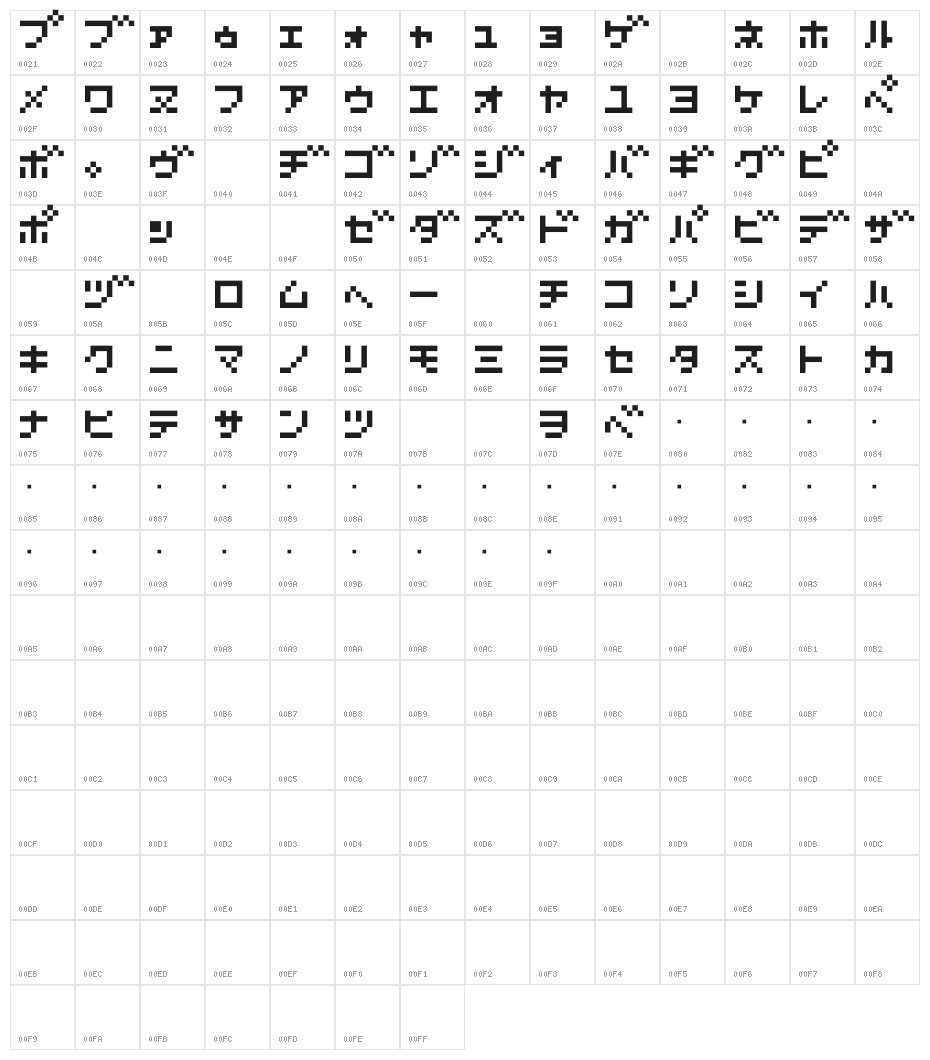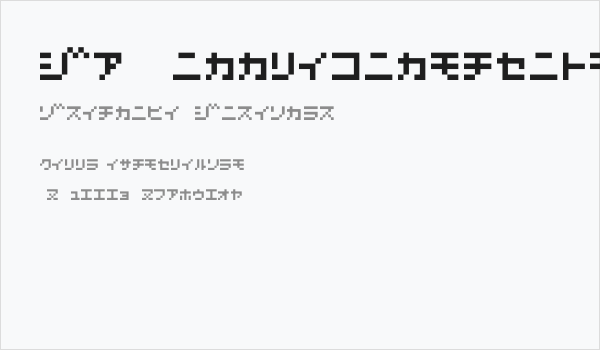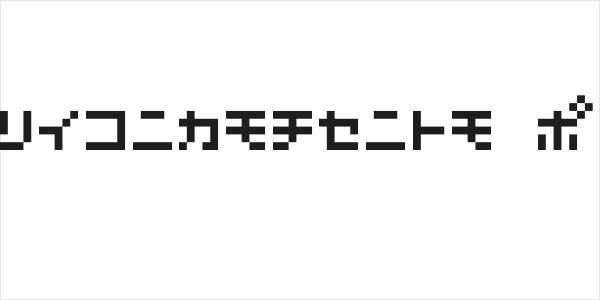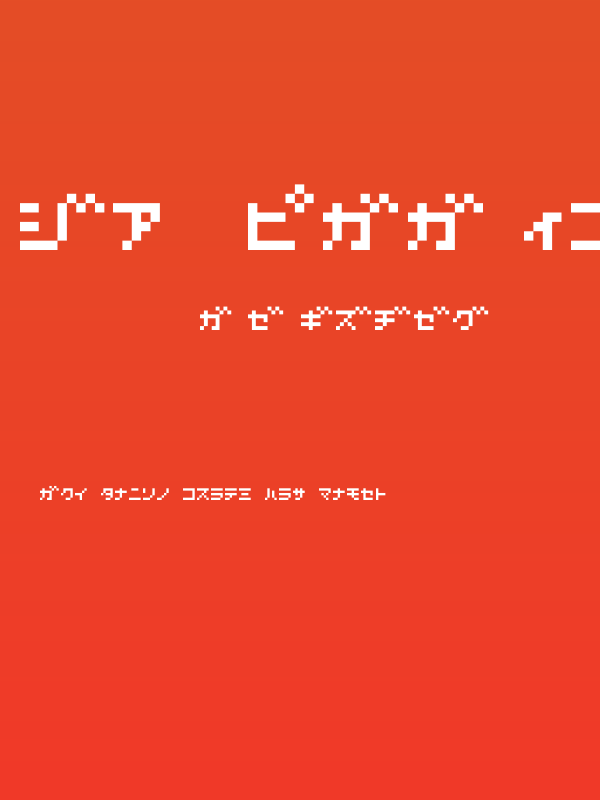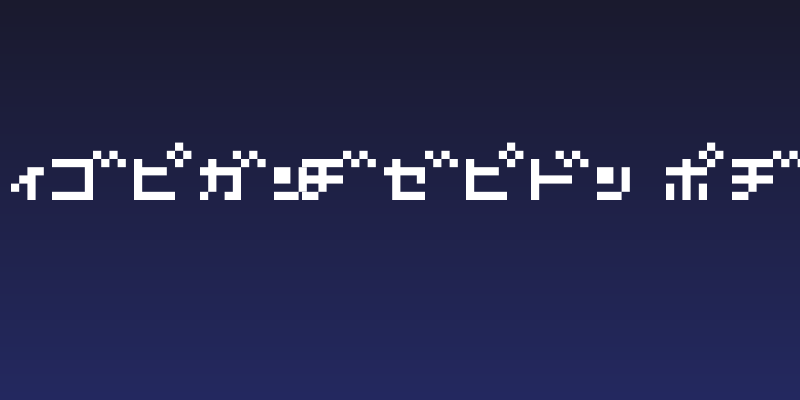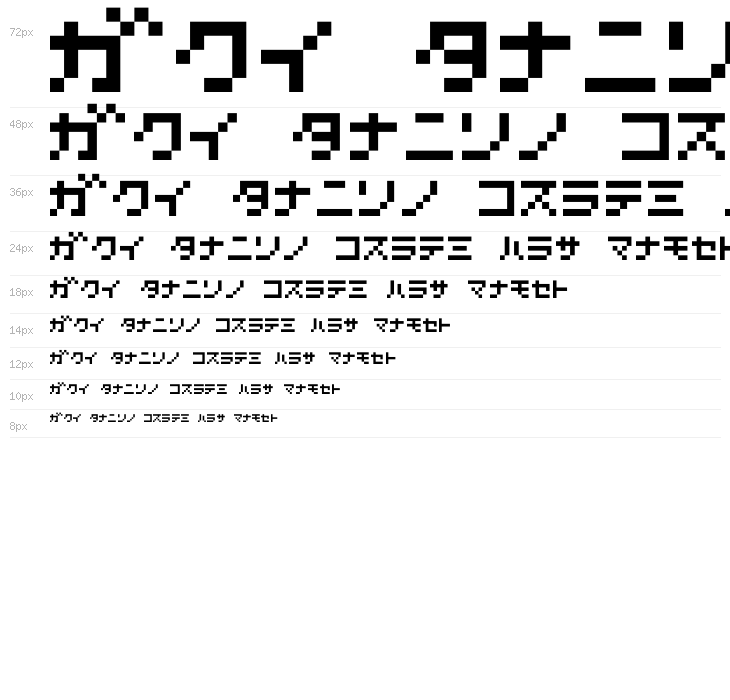
D3 Littlebitmapism Katakana Font
D3 Littlebitmapism Katakana Description
This font features a pixelated, bitmap style that is reminiscent of early digital displays and video games. The characters are composed of small, square blocks, giving them a distinctly retro and digital appearance. Each character is clearly defined with sharp edges and uniform spacing, making it highly legible despite its unique style. The font captures the essence of 8-bit graphics, often seen in classic arcade games, and provides a nostalgic feel. It is ideal for projects that aim to evoke a sense of vintage digital aesthetics or for use in designs that require a tech-savvy, modern-retro look.
| Use Case | Logos, Headlines, Digital displays |
| Proposed Projects | Ideal for video game design, retro-themed posters, digital art projects, and tech-related branding. |